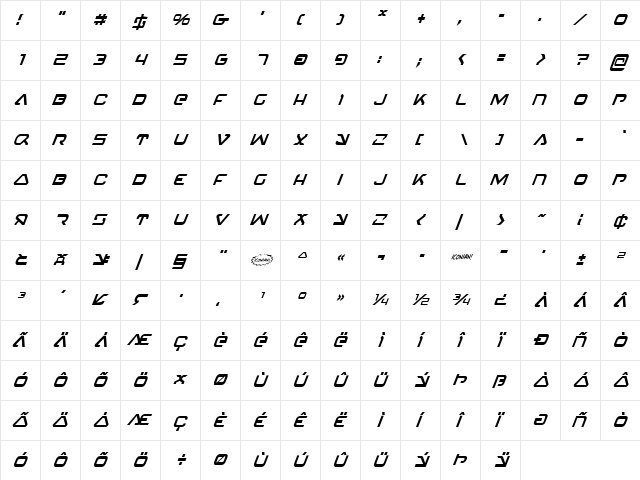
4114 Blaster Condensed Italic Font Preview
Design Context for 4114 Blaster Condensed Italic Typeface
4114 Blaster Condensed Italic is a composed and adaptable typeface that performs quietly and consistently across a wide range of design contexts. The dynamic lean of this cut emphasises speed and emphasis in any layout. Its narrow stance lets it pack a punch even in space-constrained designs.
Pro Tip: Try 4114 Blaster Condensed Italic for annotation and caption copy alongside an upright companion — the contrast in angle creates a dynamic but ordered typographic system.